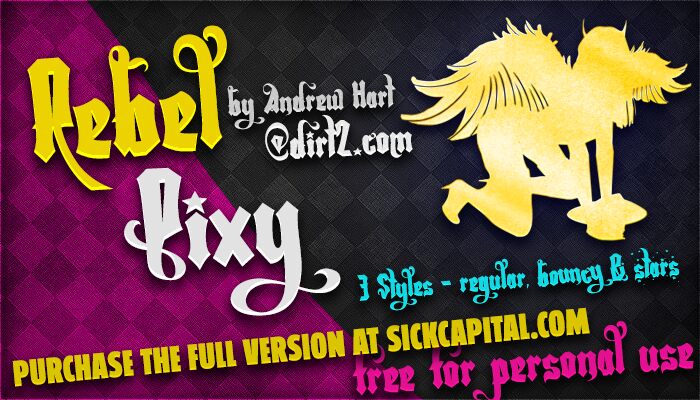
An old-english font with swirls and stars loosely based off of my font 'Ithornet'.
There are 3 versions: regular, stars (which has lots of added stars) and bouncy which is the regular version but with the characters rotated and positioned randomly.